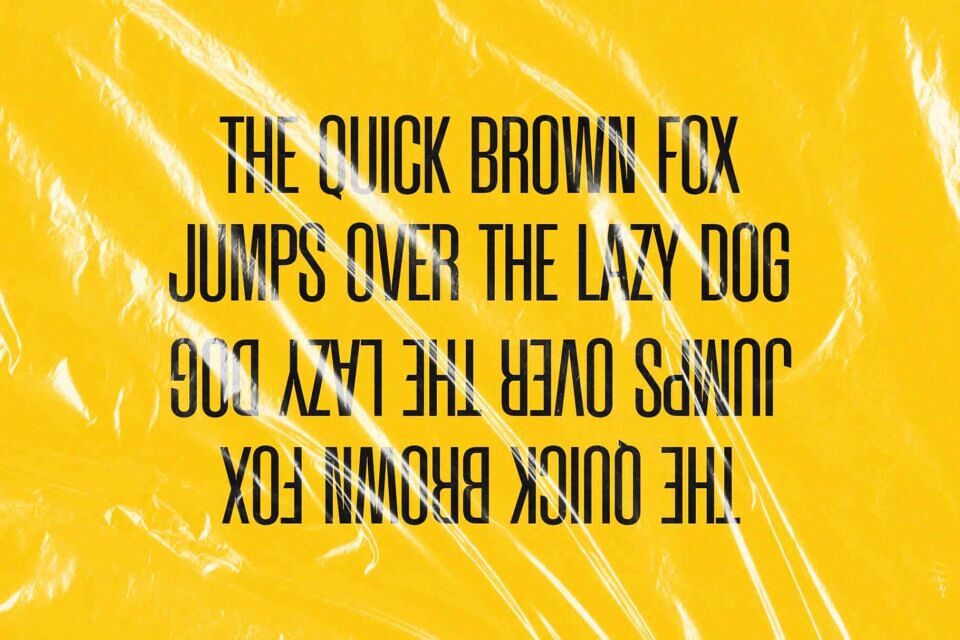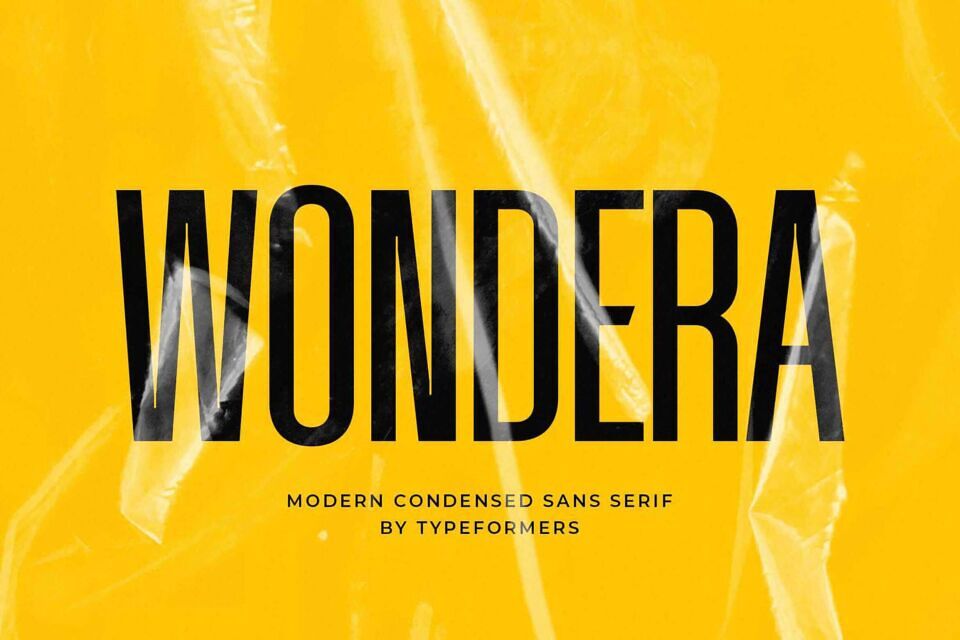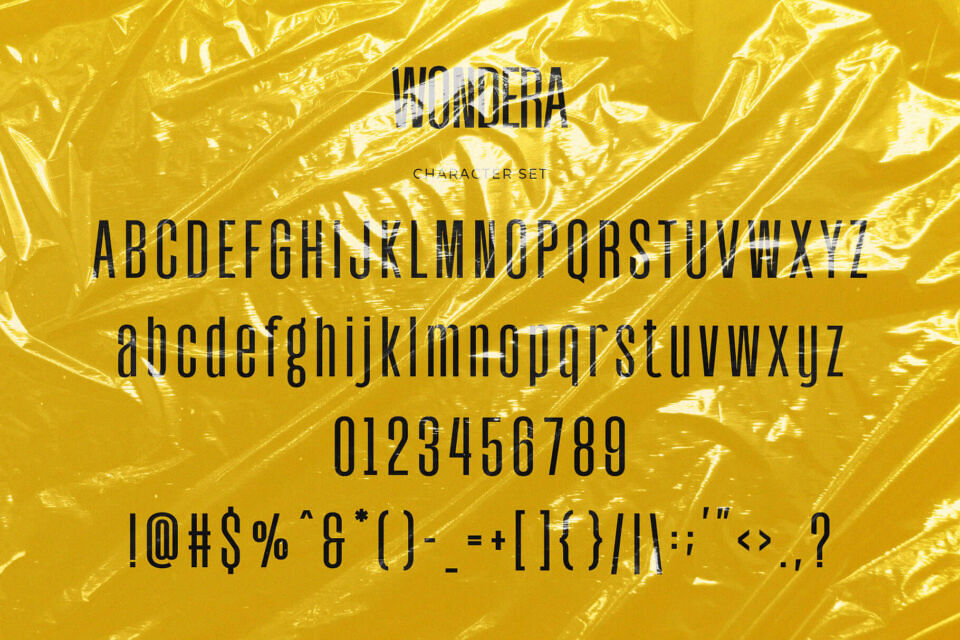
Wondera Font
Introducing Wondera, a Modern Condensed Sans by Typeformers. Wondera is a modern and simple all-caps font, best used as a display for headings, logos, branding, magazines, product packaging and invitations.